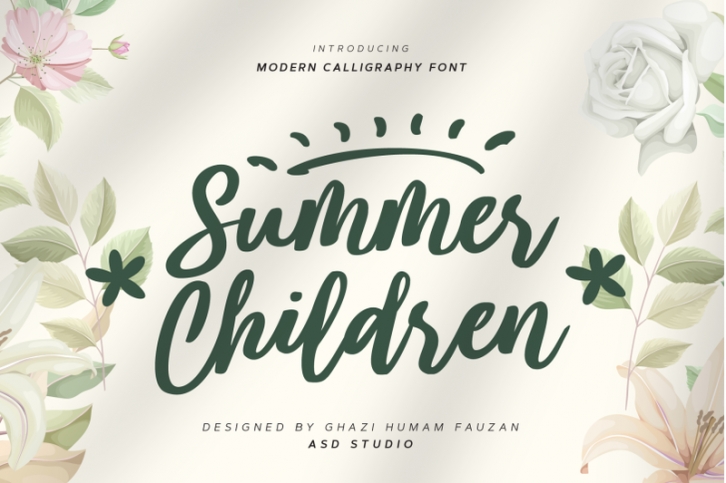
Introducing Summer Children by Asd Studio
Summer Children is a modern calligraphy font. Whatever the topic, this font will be a wonderful asset to your font library, as it has the potential to enhance any creation.
:: Uppercase & Lowercase
:: Numbers & Punctuation
:: Swashes Ligature
:: Multilingual Support